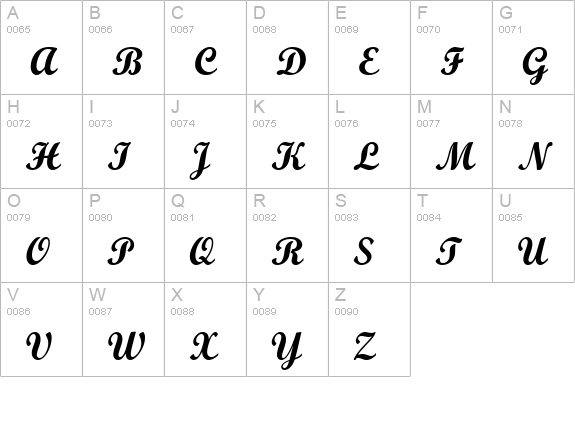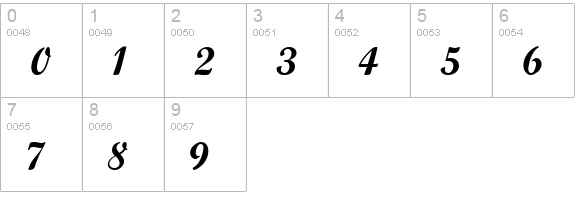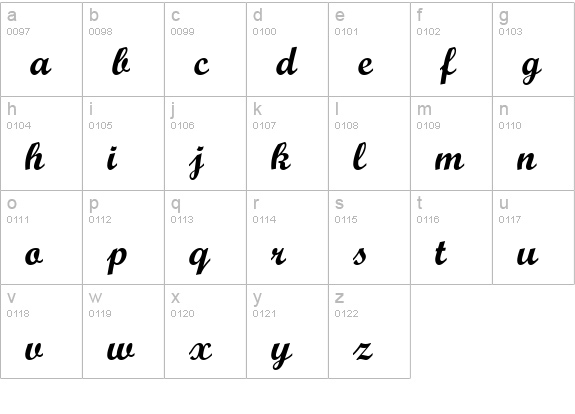
Wrexham Script font is an exquisite and elegant typeface that exudes sophistication and charm. Its graceful and flowing strokes make it perfect for adding a touch of elegance to any project. This font captures the essence of classic calligraphy with its beautifully crafted letterforms. Wrexham Script font is meticulously designed to create a seamless and smooth reading experience. Its unique and stylish characters come together to create a harmonious and visually appealing composition. Whether it's used for wedding invitations, branding, or any other creative project, this font is sure to leave a lasting impression. One of the standout features of Wrexham Script font is its versatility. It adapts effortlessly to different design styles and can be used for both formal and informal projects. Its timeless appeal and versatility make it a valuable asset for designers and creatives alike. As an added bonus, Wrexham Script font is freely available to download at FontsMarket.com. This means that you can easily access this stunning font without any cost. Simply head over to FontsMarket.com and start using this beautiful typeface in your projects today. In conclusion, Wrexham Script font is a top choice for those seeking a sophisticated and elegant typeface. Its graceful letterforms and versatility make it perfect for a wide range of projects. And with the added benefit of being freely available to download at FontsMarket.com, there's no reason not to incorporate this stunning font into your creative endeavors.